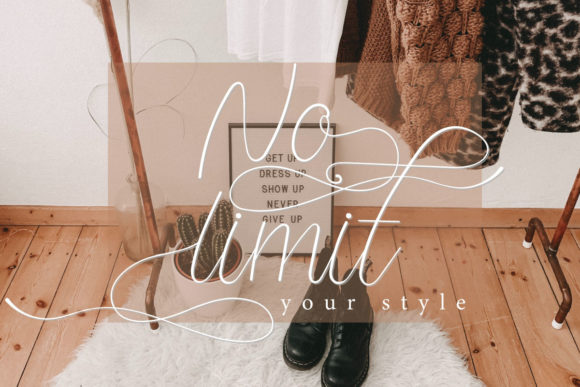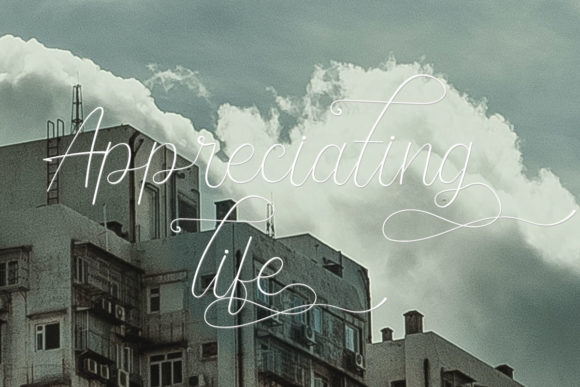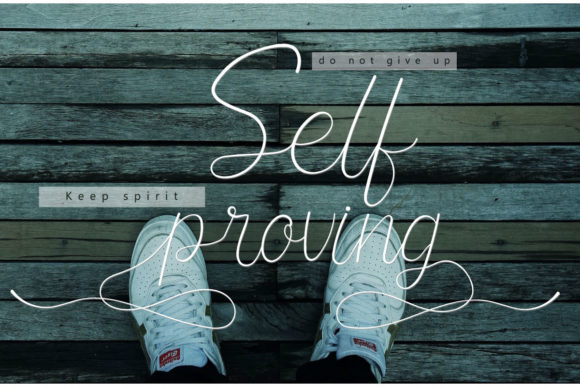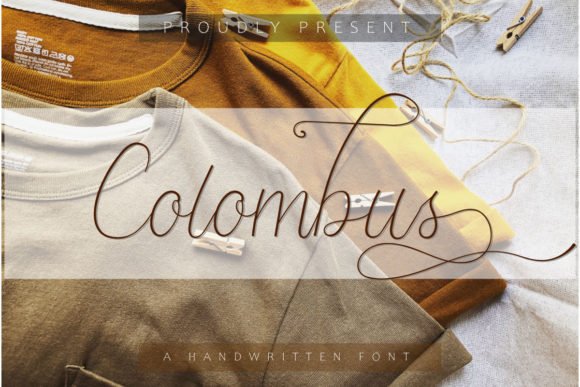
Introduction to Colombus Font
Colombus is a slim and timeless handwritten font.
Why Choose Colombus Font?
Colombus Font offers exceptional quality and versatility, making it a valuable addition to your design toolkit. Whether you’re creating for personal projects or commercial use, Colombus Font delivers professional results.